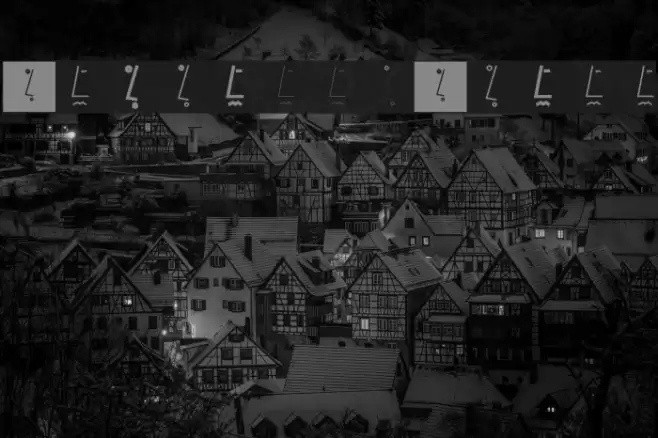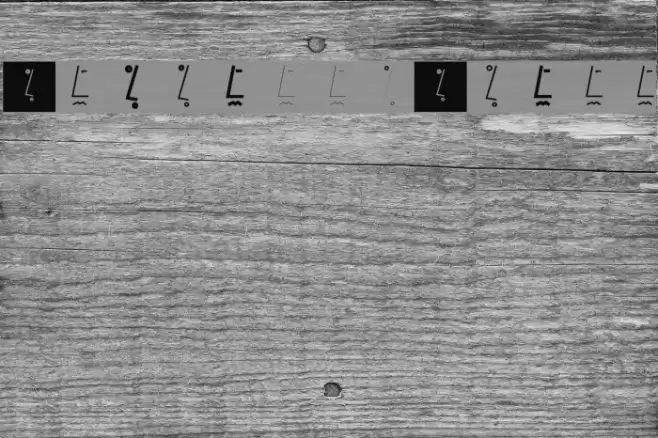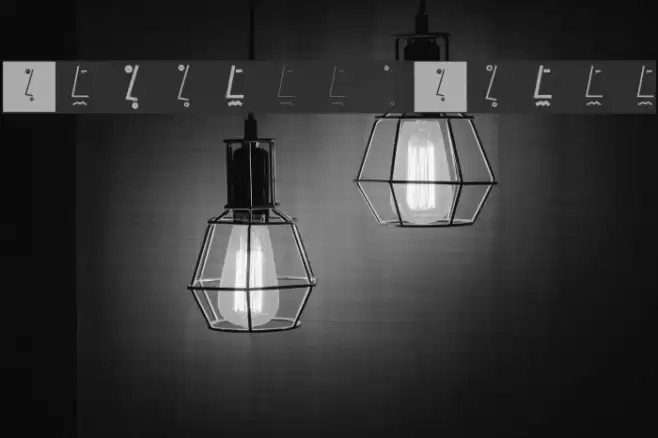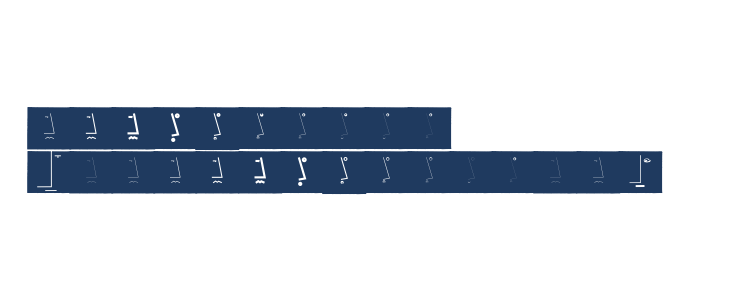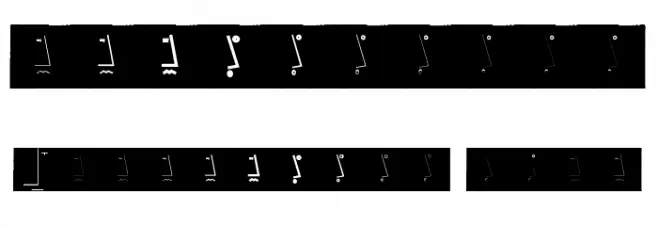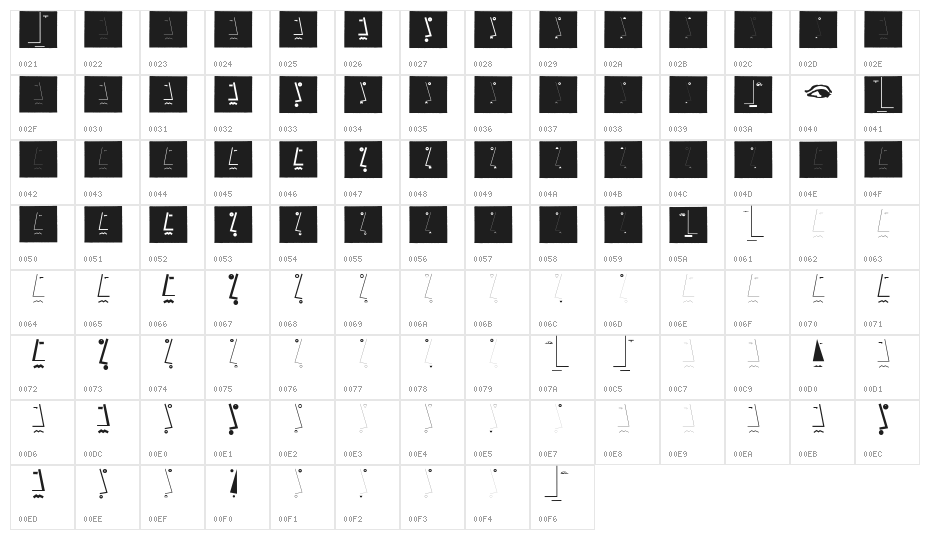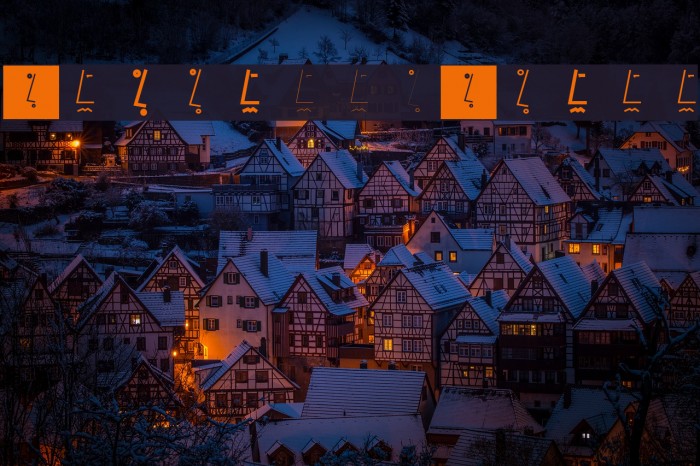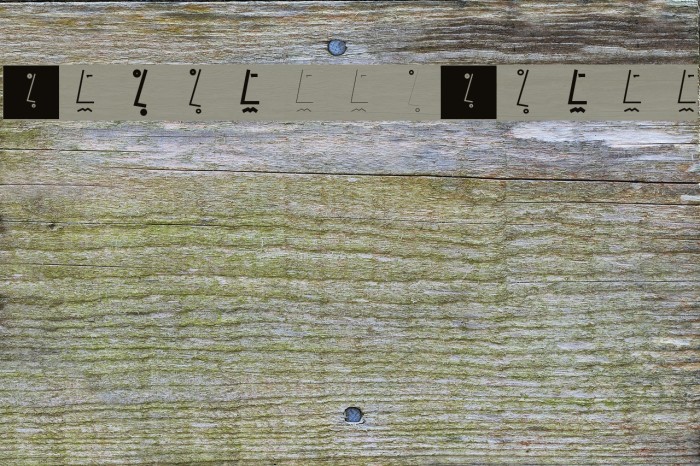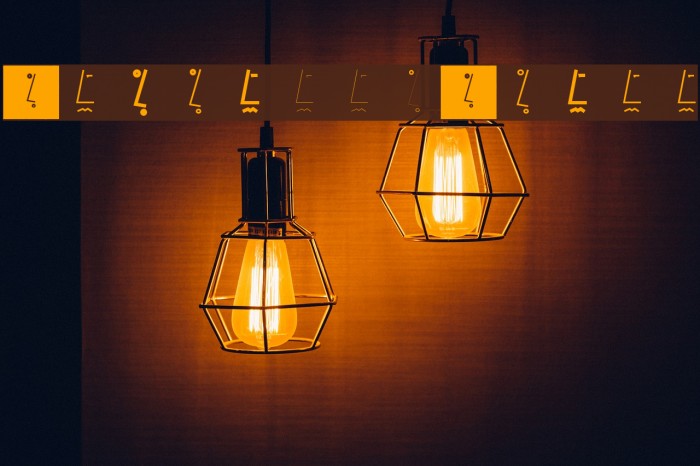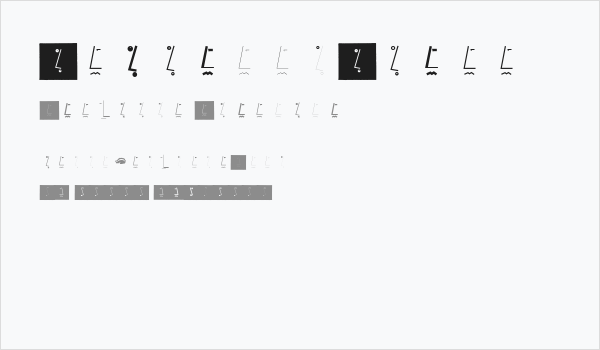
TestroomThree Font
TestroomThree Description
This font features a highly decorative and abstract design, characterized by its unique geometric shapes and playful elements. Each character is constructed with a combination of lines and dots, creating a whimsical and artistic appearance. The font lacks traditional serifs or strokes, instead opting for a minimalist approach with a focus on visual intrigue. The characters are uniform in height, but vary in their individual design elements, making each letter distinct. This font is well-suited for creative projects that require a modern and unconventional aesthetic.
A decorative and abstract font with geometric shapes and playful elements from Uncategorized fonts.
- Proposed Projects: Ideal for artistic posters, modern branding, creative invitations, and unique logo designs.
- Use Case: Logos, Headlines, Artistic projects